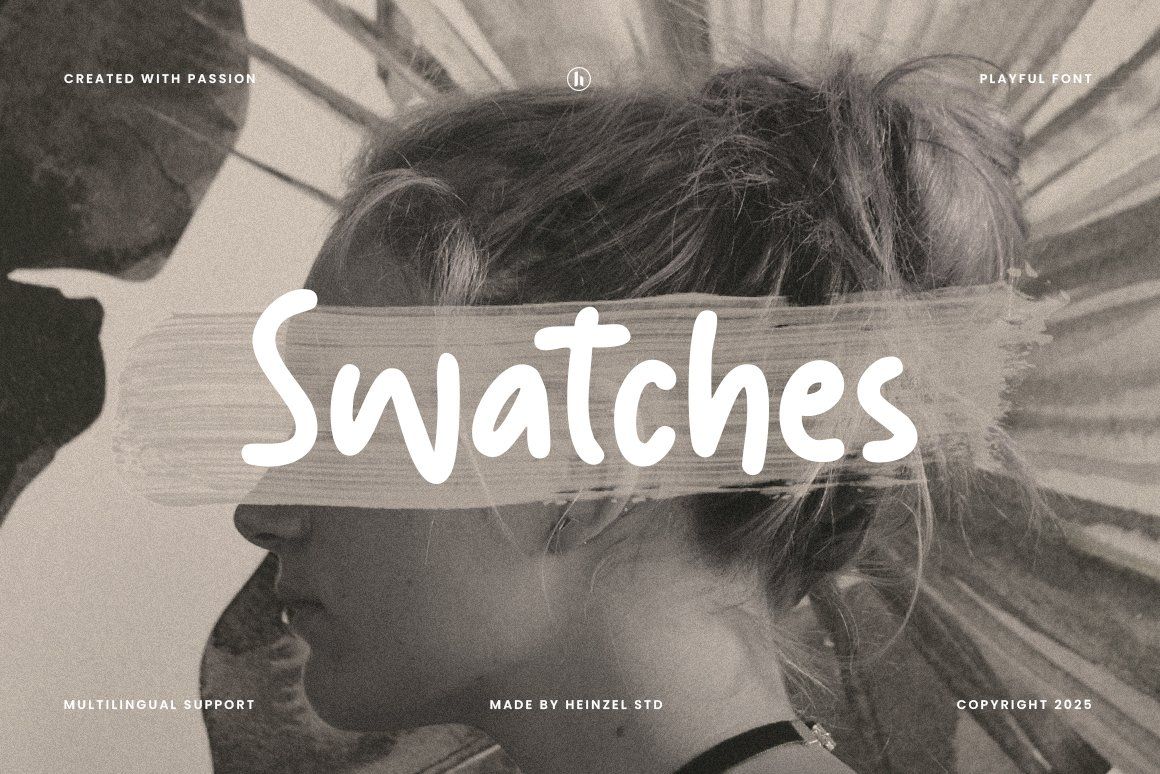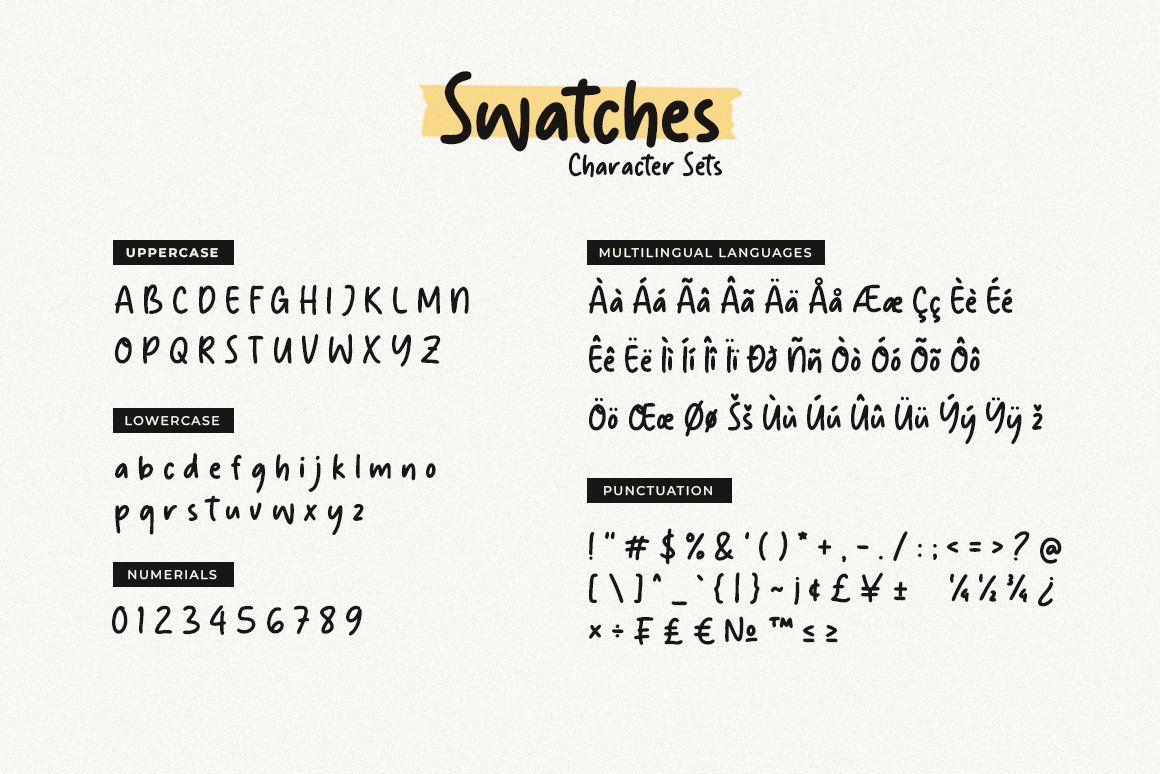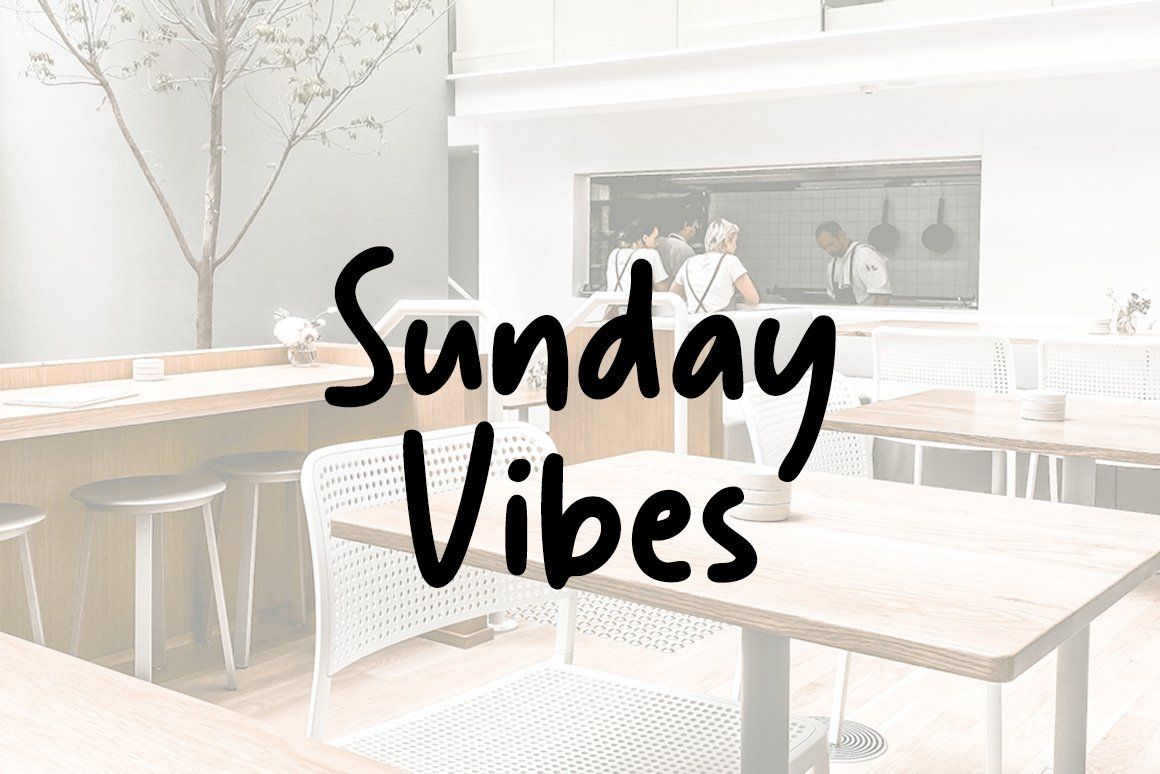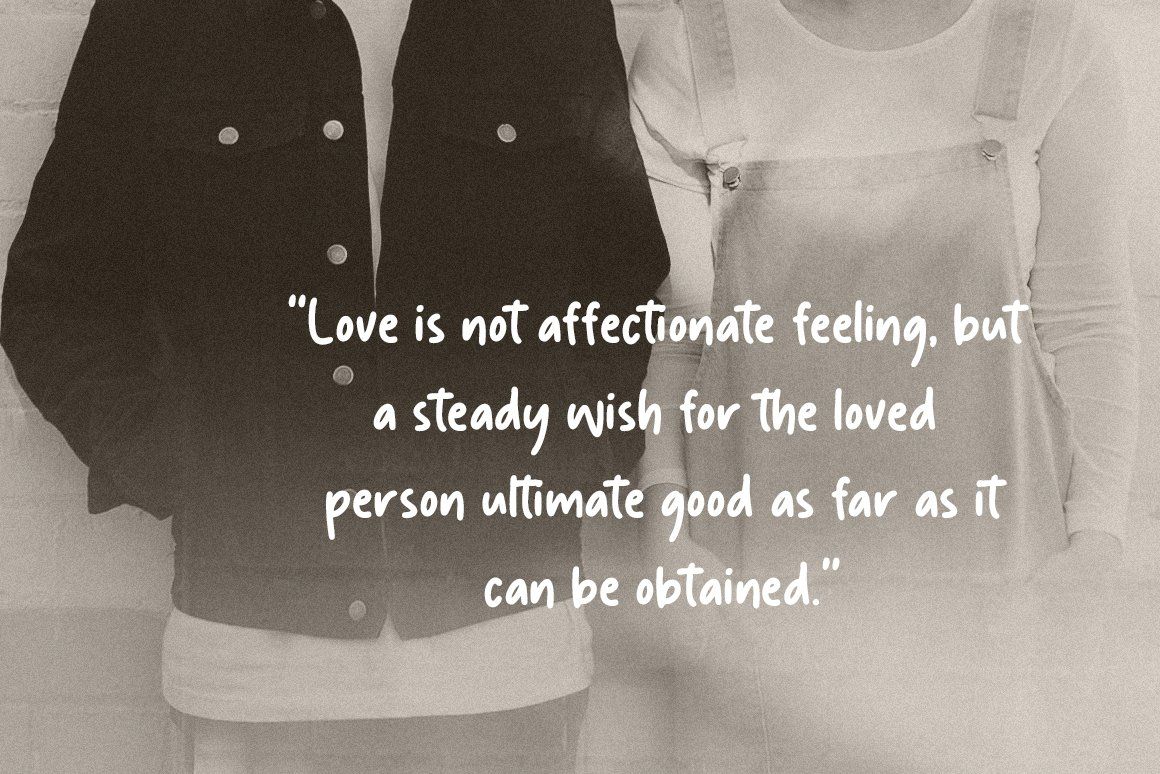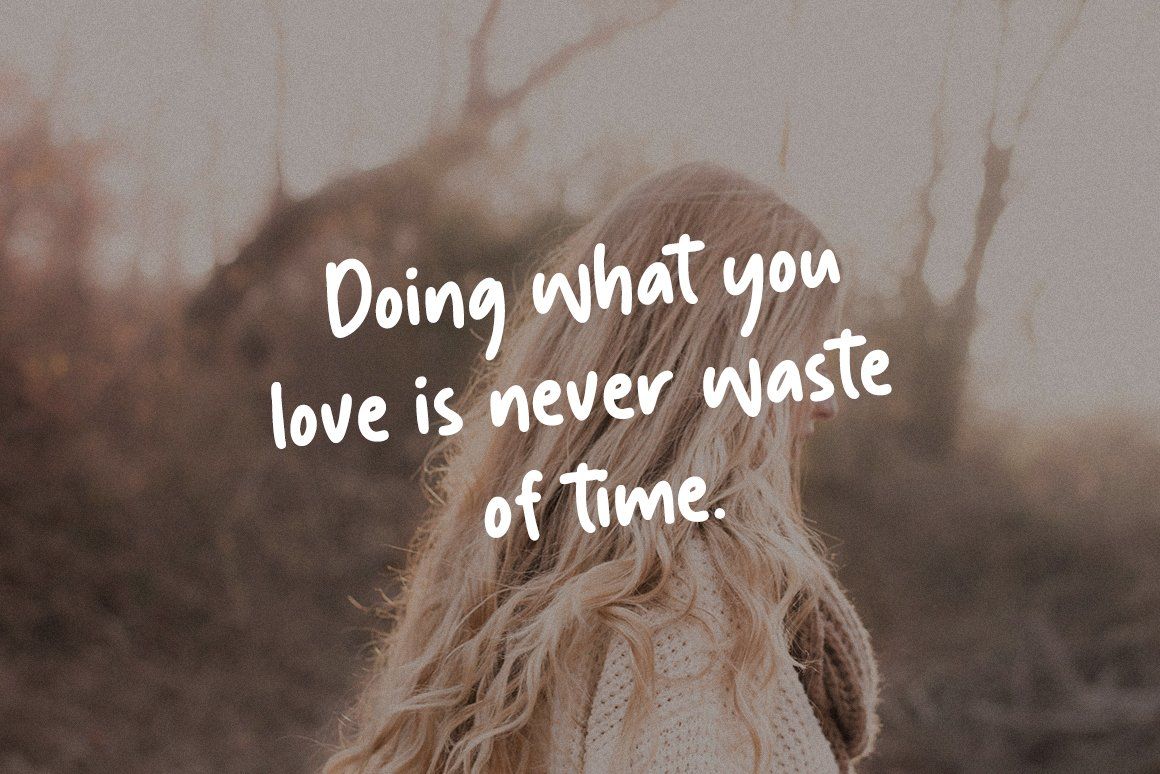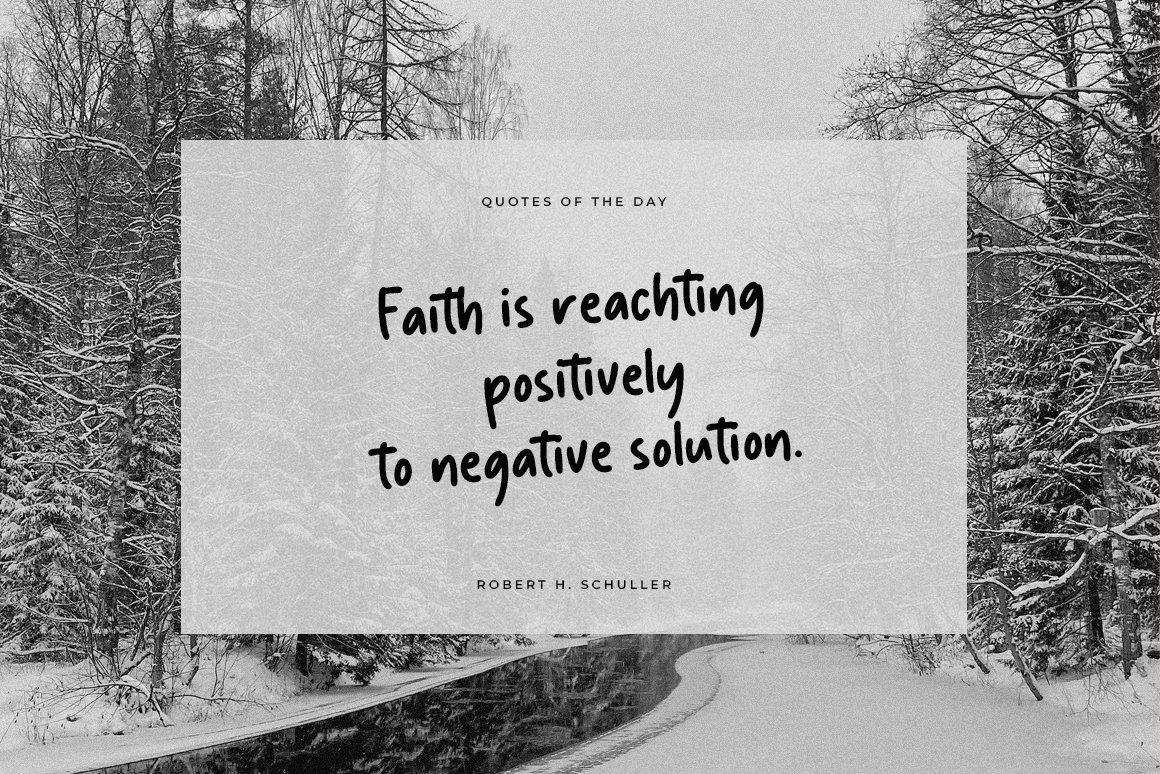
Swatches is a playful handwritten display font designed to bring warmth, creativity, and personality into every design project. With its smooth curves, bold strokes, and casual handwritten style, Swatches creates a friendly and modern look that feels both fun and authentic. Perfect for branding, social media graphics, packaging, posters, children’s products, quotes, invitations, and creative marketing materials, this font adds a natural handwritten touch that instantly stands out.
Carefully crafted for versatility and readability, Swatches works beautifully in both digital and print designs. Its charming character style makes it ideal for playful branding, trendy logos, café menus, lifestyle products, and modern typography projects. Whether you want to create eye-catching headlines or stylish handcrafted designs, Swatches delivers a unique and expressive visual experience.
Swatches also includes multilingual support, making it suitable for global creative projects. Add a fresh, cheerful, and artistic vibe to your typography collection with this modern playful font.